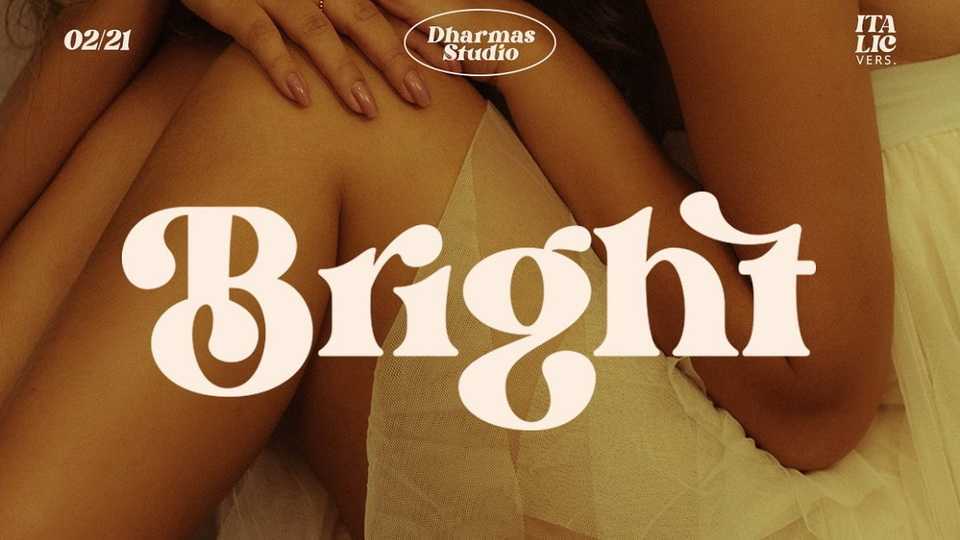
Download Bright font, a stylish serif typeface that has both modern and retro look – clear, modern and fun. Bright font helps to create layout design in 60s or 70s design projects.